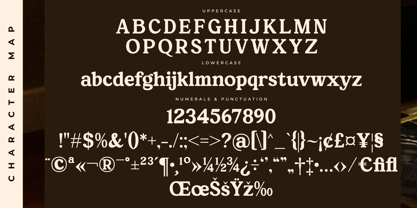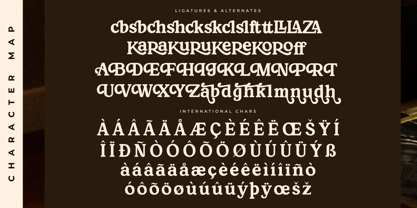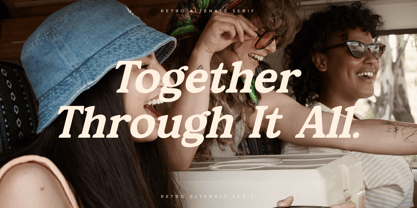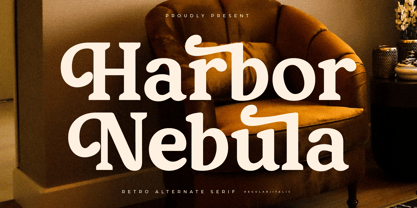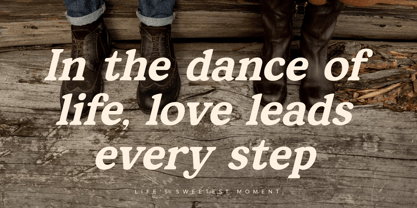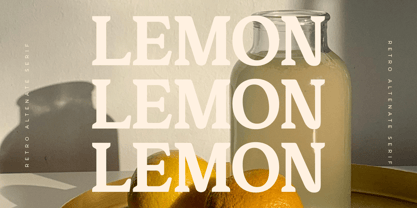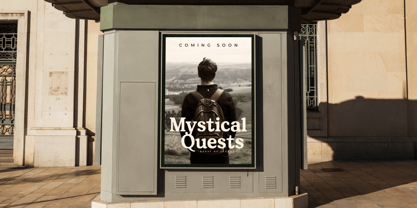
Harbor Nebula
The Harbor Nebula Font Family was designed by Heru Utama Putra and published by Letterena Studios. Harbor Nebula contains 2 styles and family package options.
Harbor Nebula is a modern and stylish serif font that combines sophistication with contemporary flair. Its clean lines and balanced proportions make it perfect for editorial designs, branding, and logos. With its versatility and timeless appeal, Harbor Nebula elevates any project with elegance and professionalism.